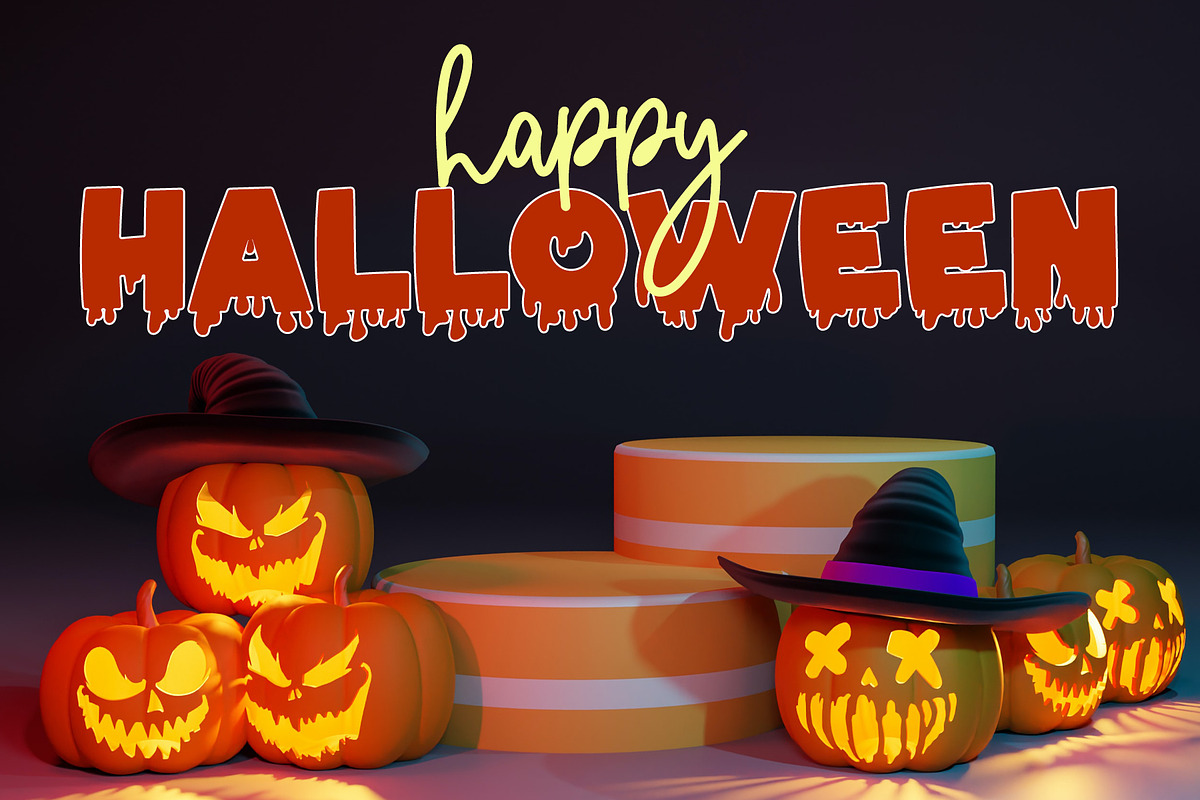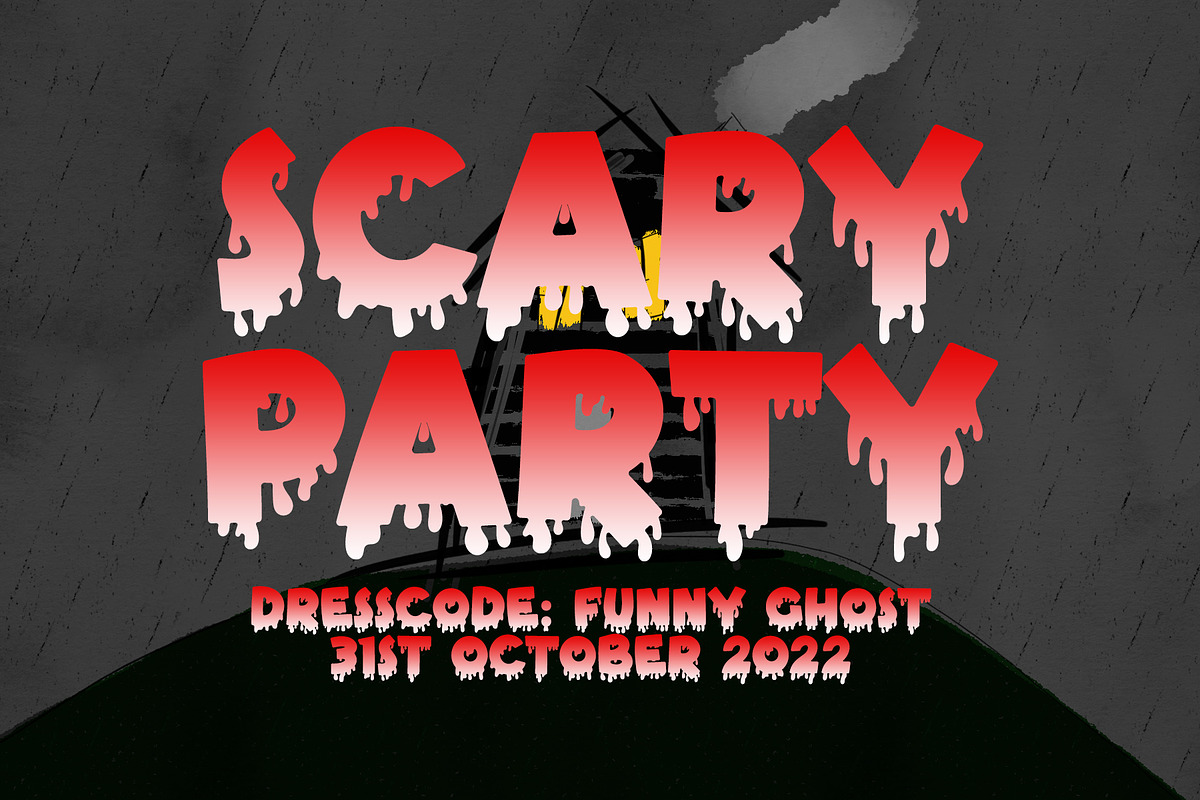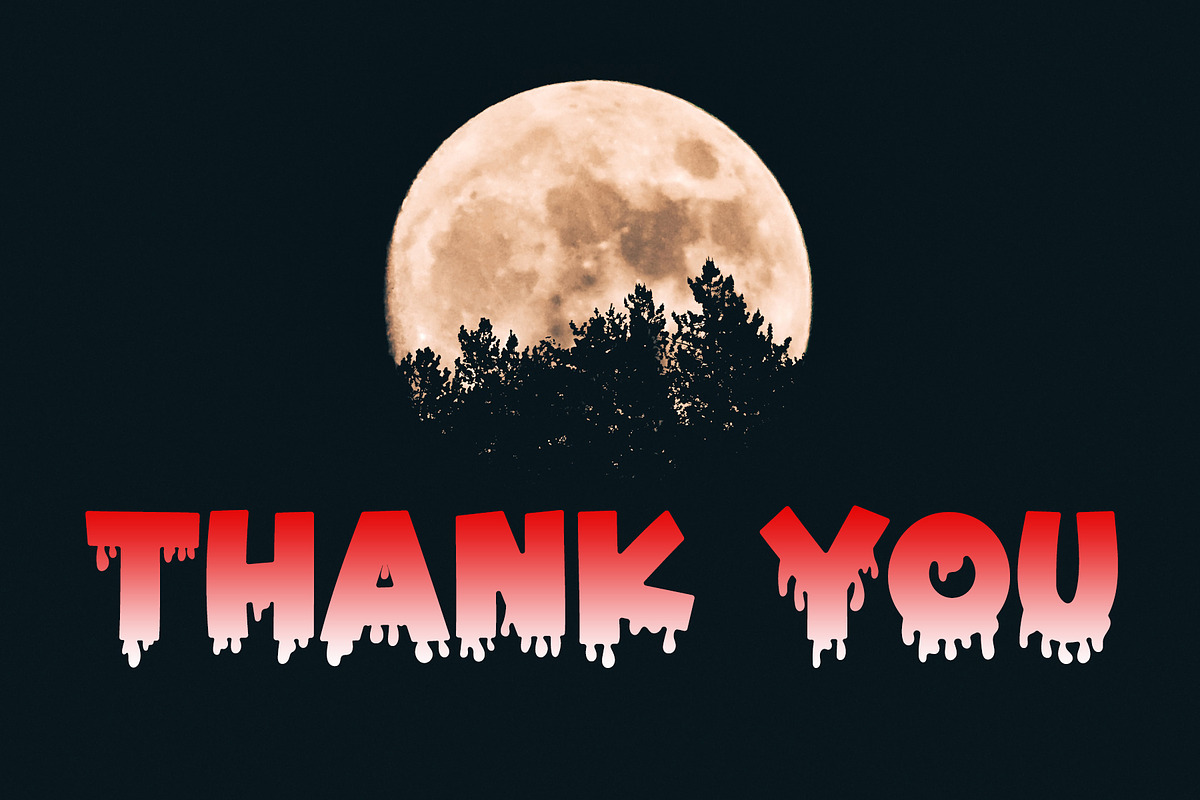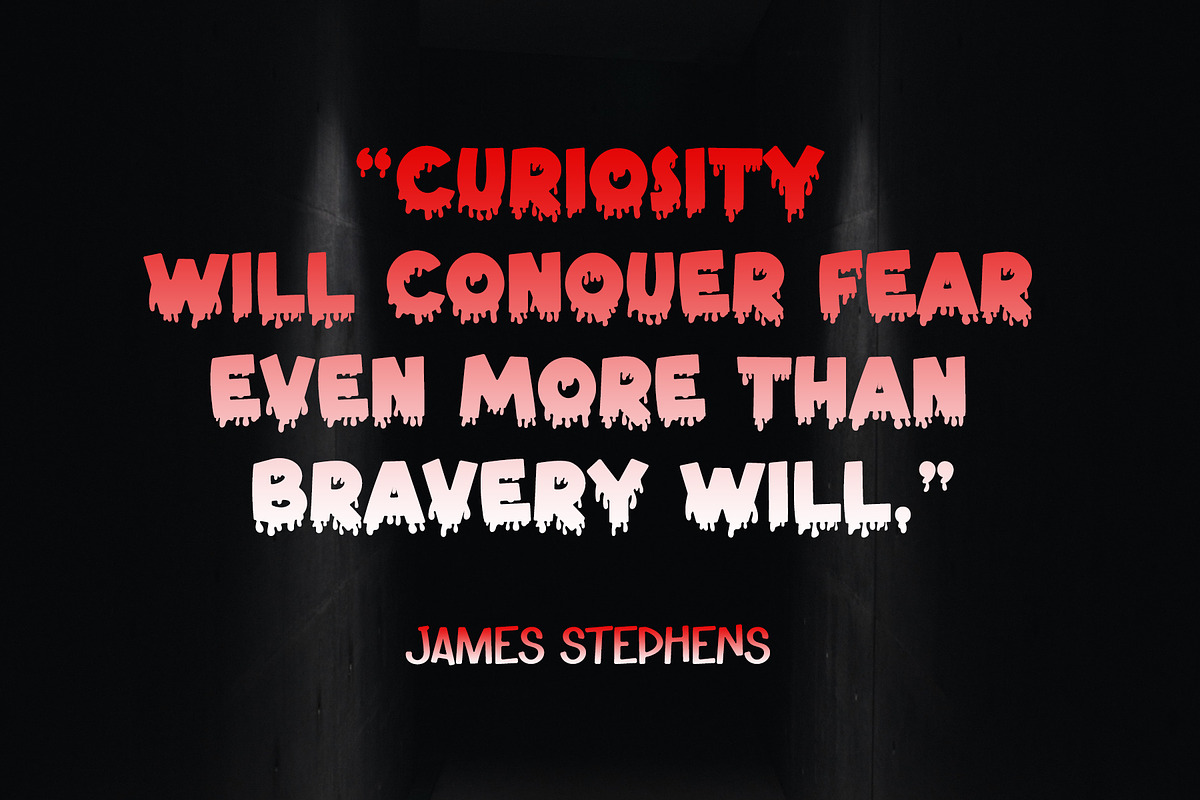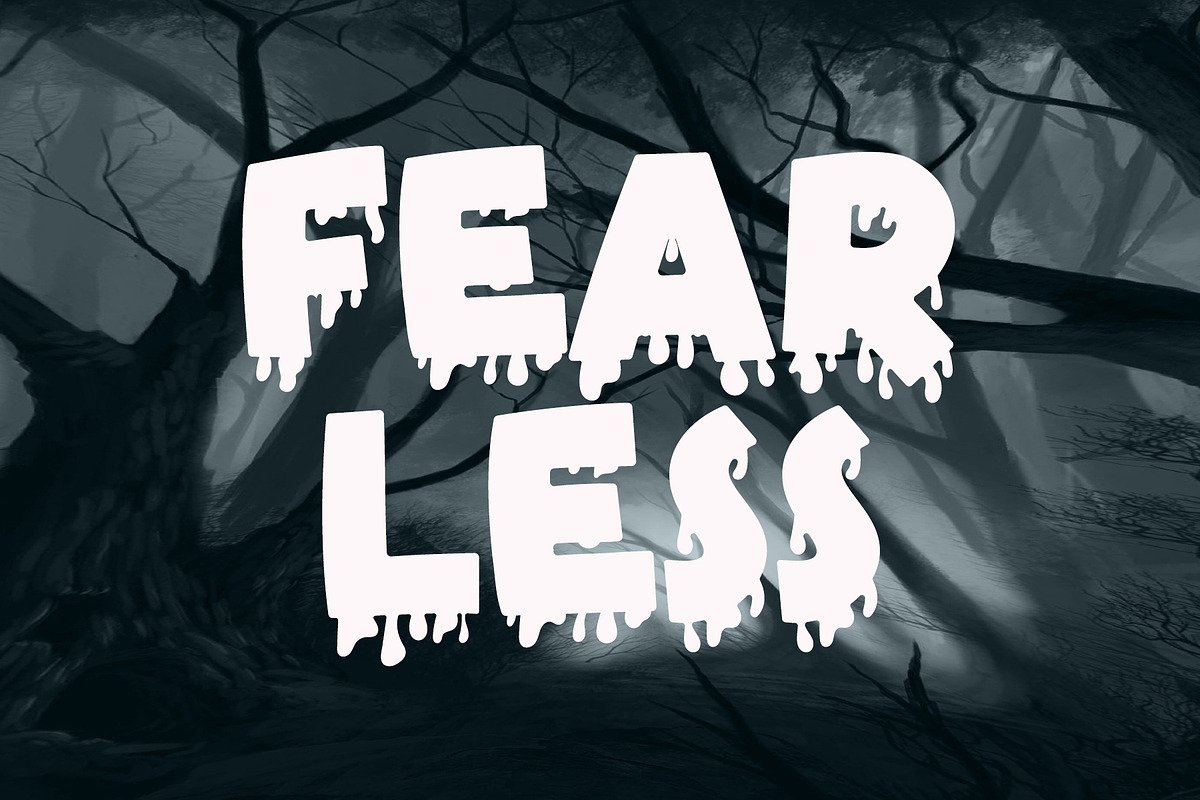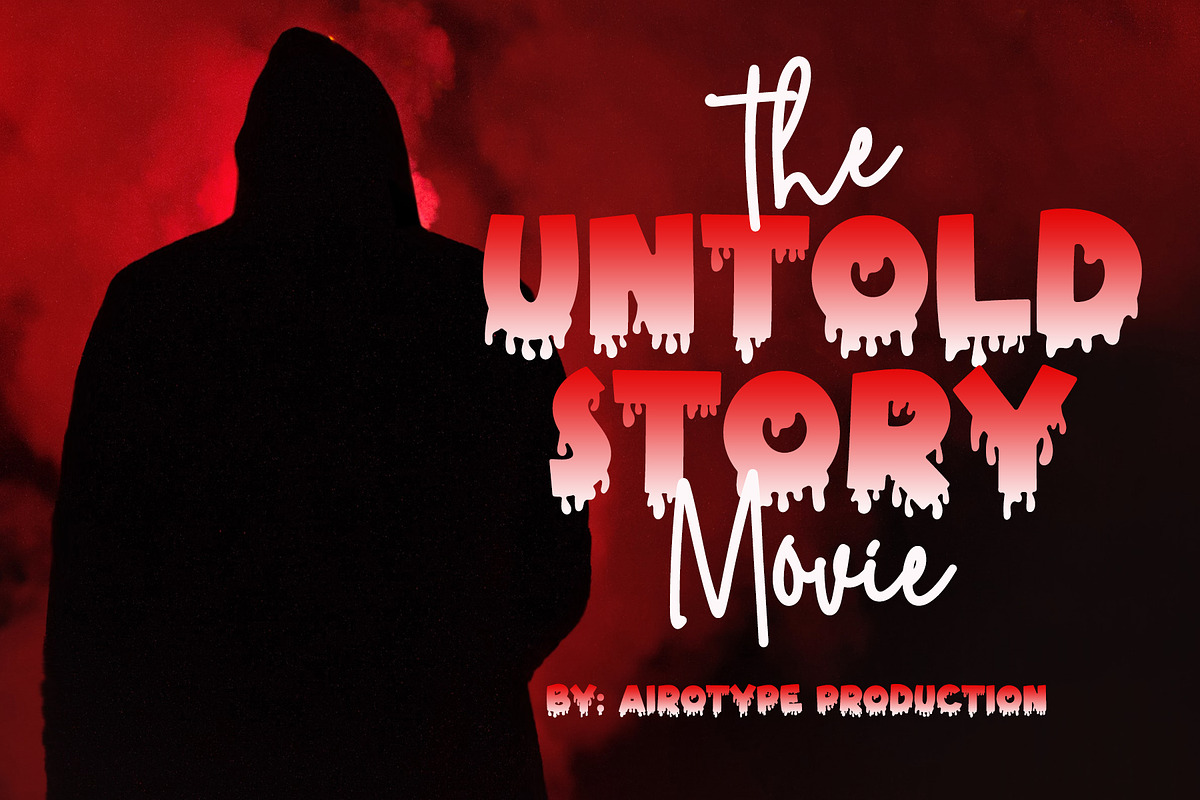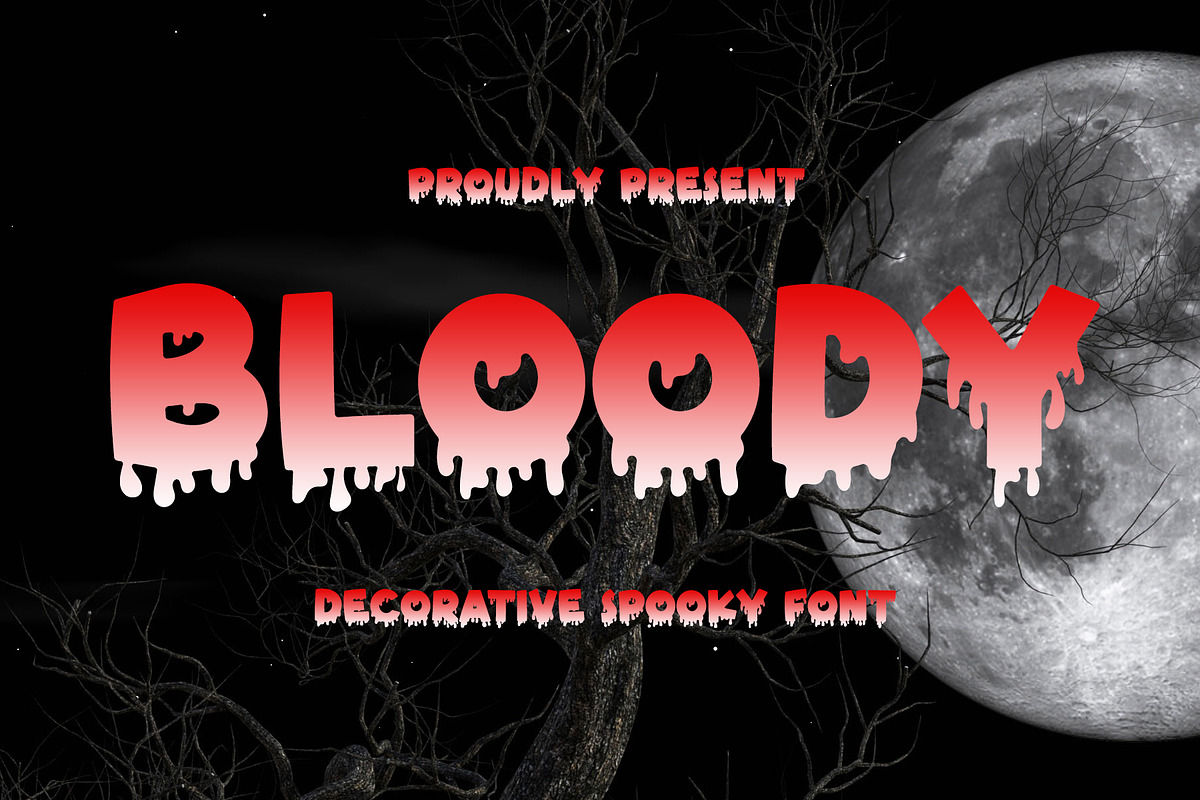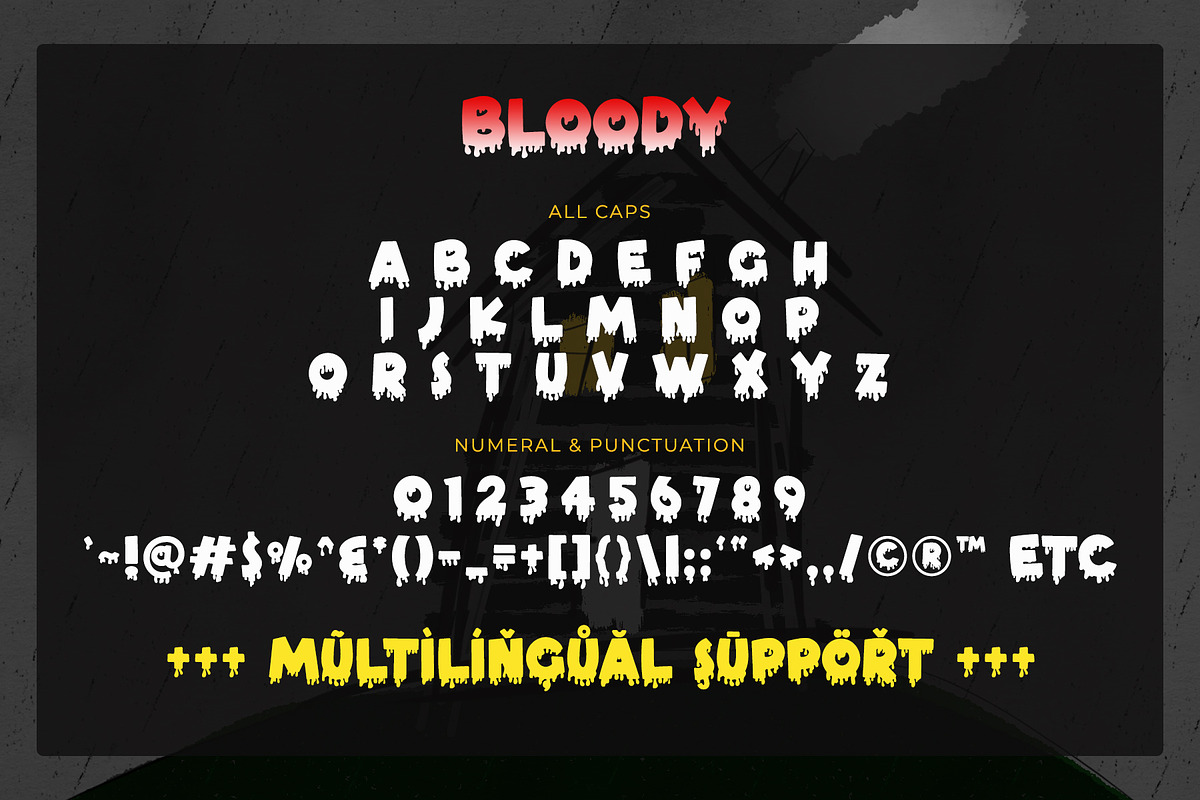
Bloody - Spooky Halloween Font
Bloody is spooky and scary font. This font is special font for halloween.
Bloody is perfect and fun to be used in spooky design, such as halloween, crafting, t-shirt design, stickers, sublimation, and others.
- All Caps
- Most Multilingual Accent